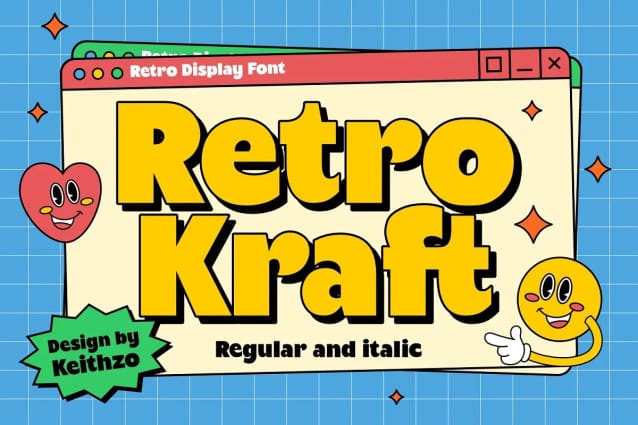
Retro Kraft Font
Retro Kraft Font is a bold and charismatic display typeface that effortlessly channels the vintage charm of yesteryears. Its sturdy lines and distinctive character bring a touch of nostalgia to your designs, evoking the classic aesthetics of retro signage and packaging. Whether it’s for headlines, logos, or posters, Retro Kraft adds a timeless flair that captures the essence of a bygone era.